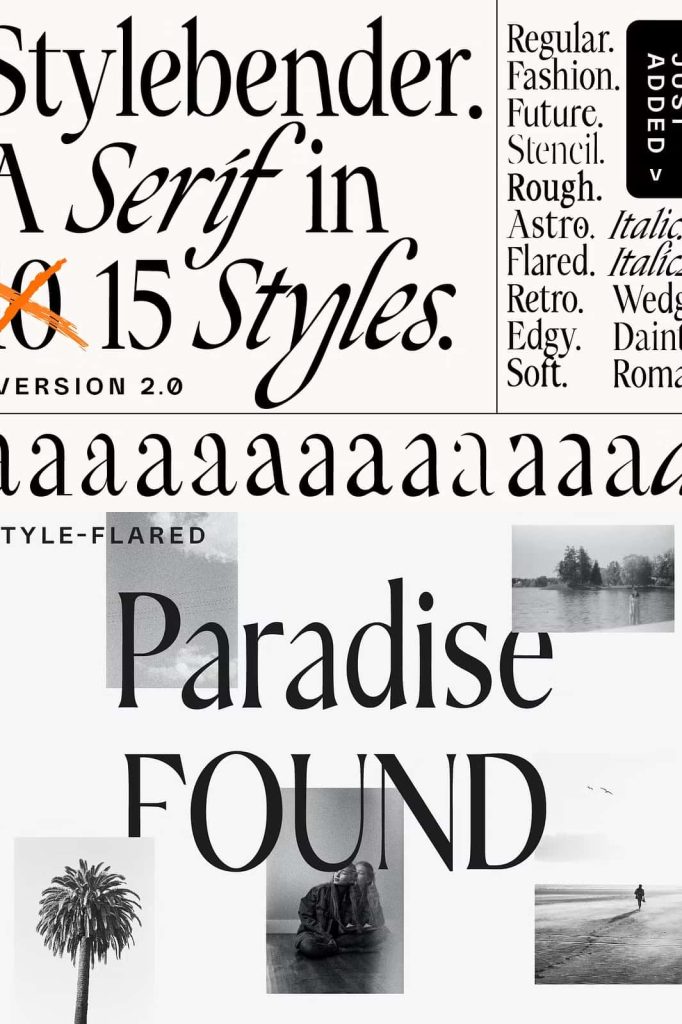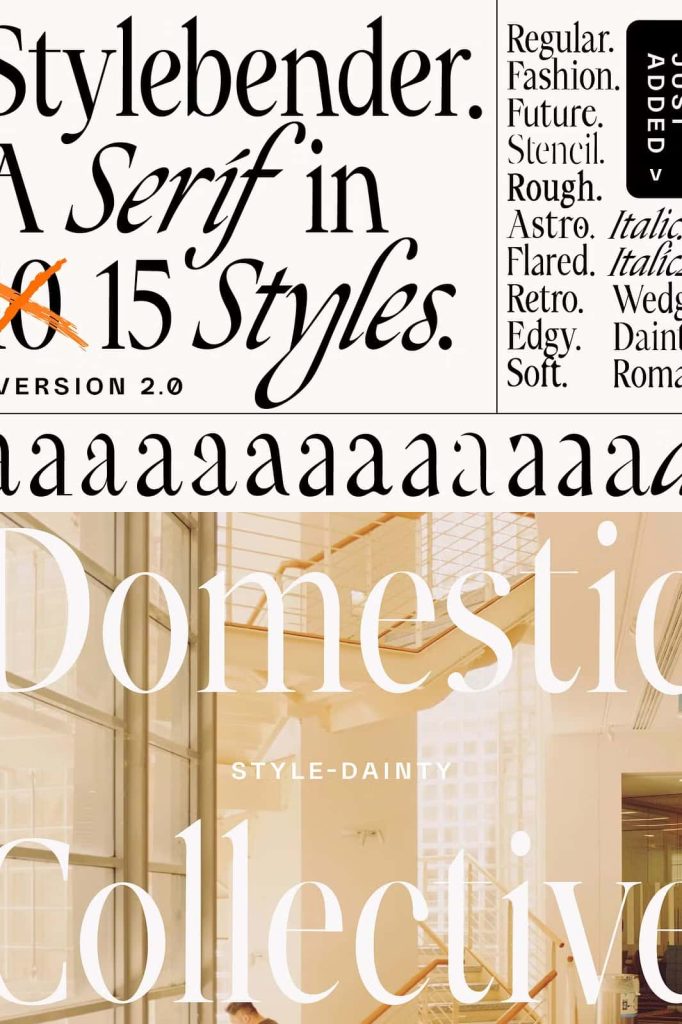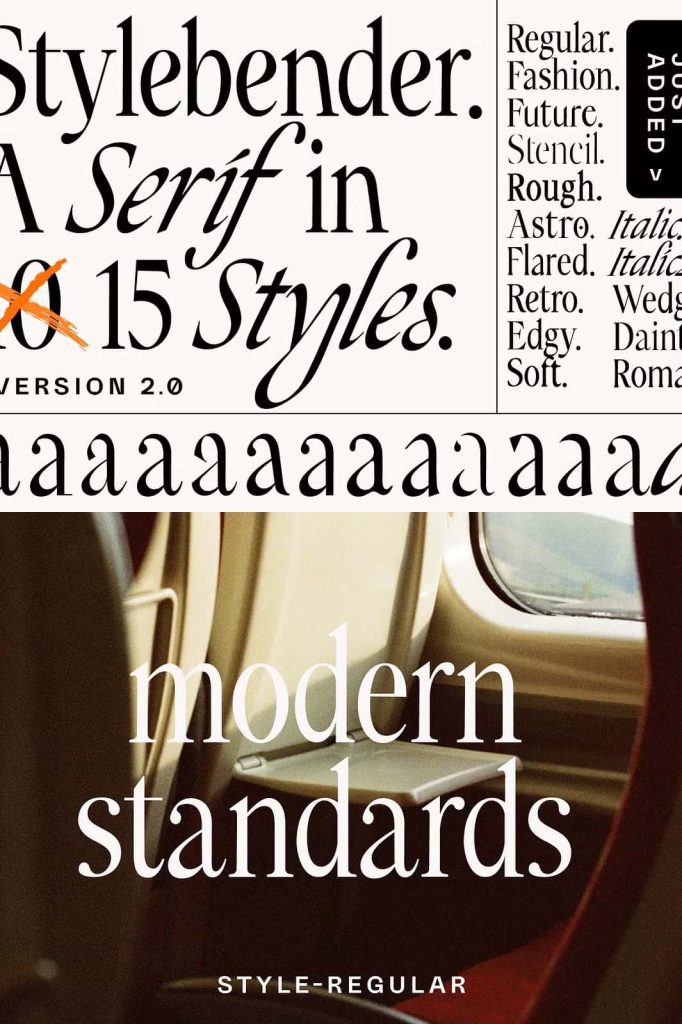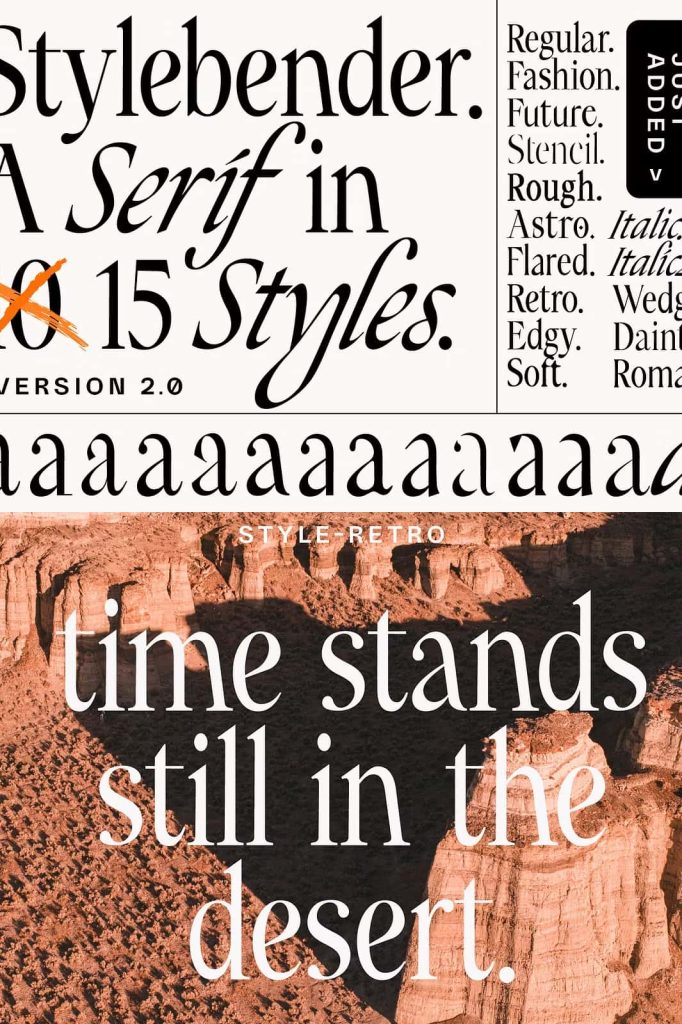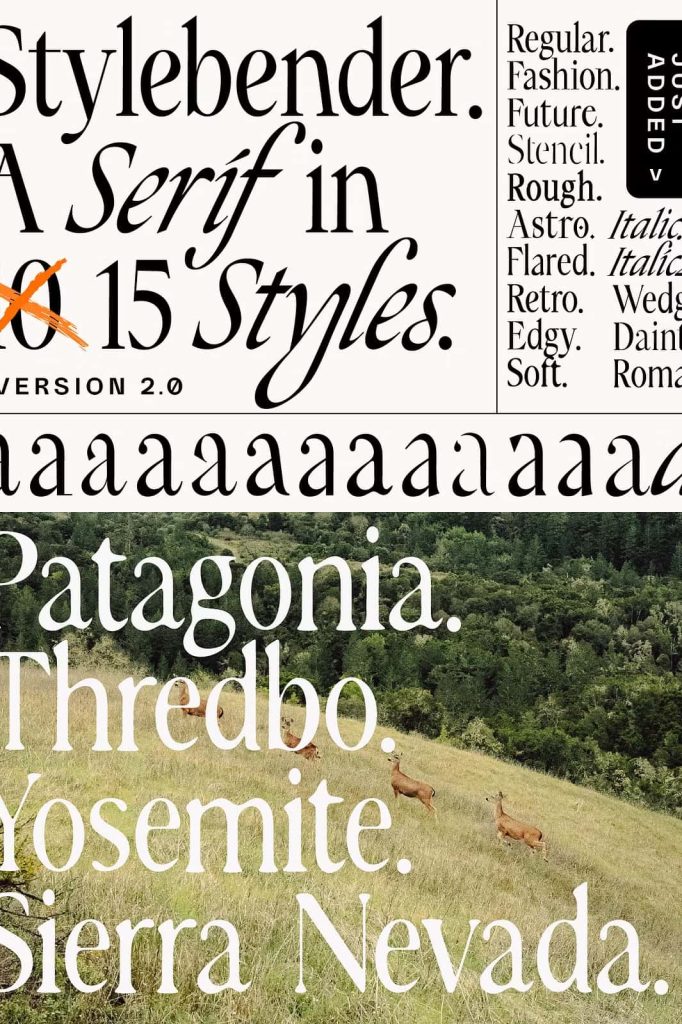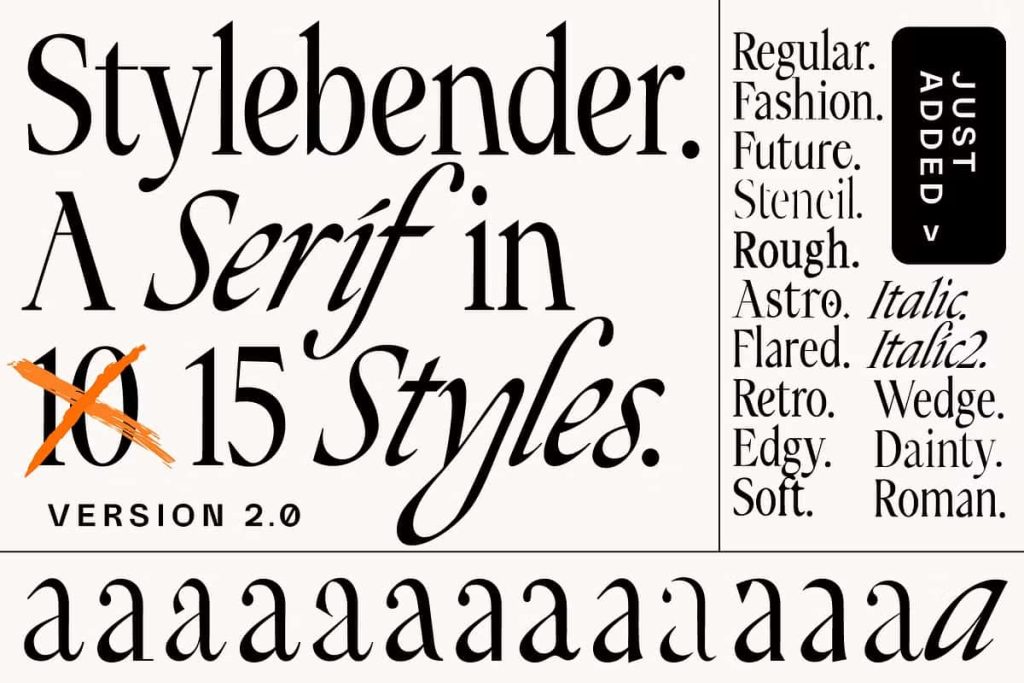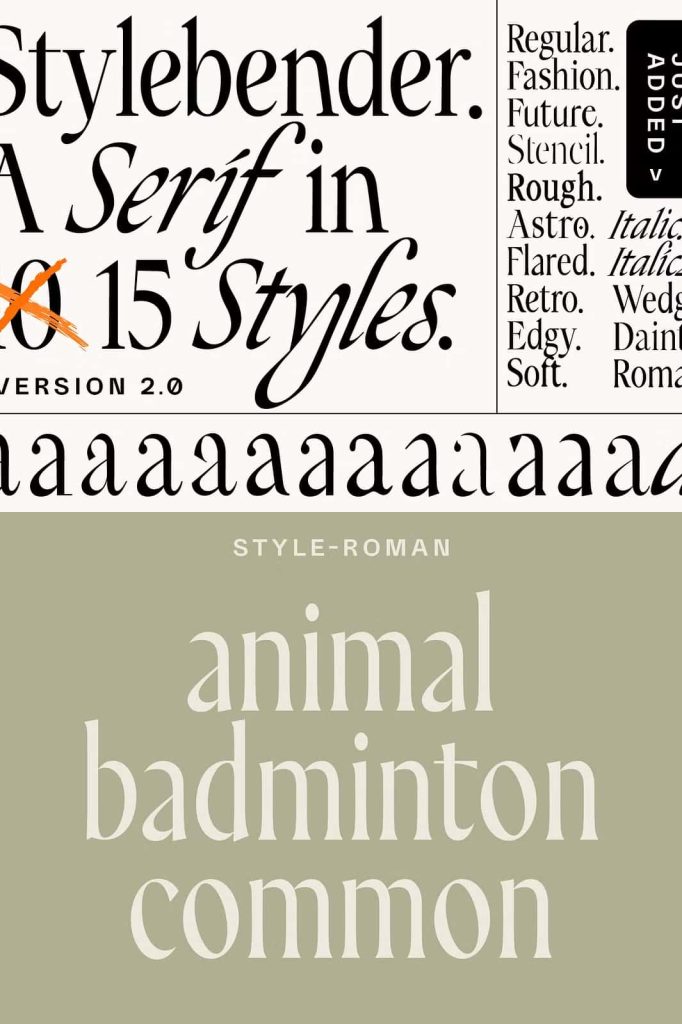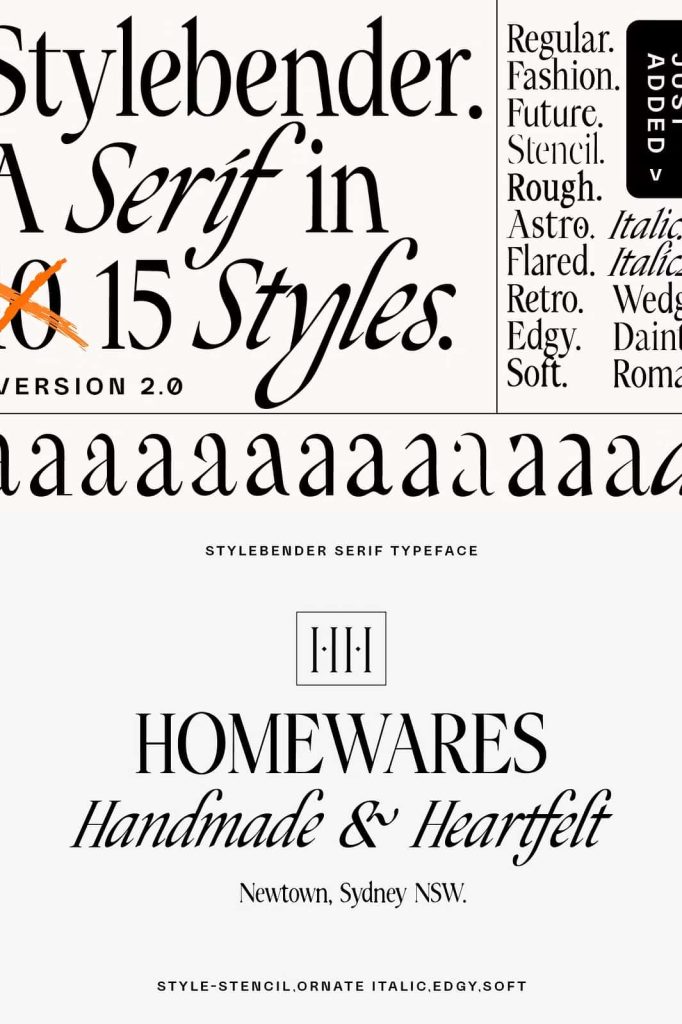
Stylebender may the most versatile serif in type history! A theme and variation style font which works for everything from a heavy metal poster to a chic word-mark. From a Fashion magazine masthead to a farmers market tote-bag.